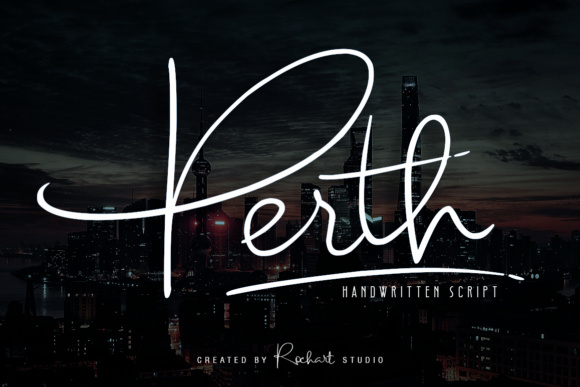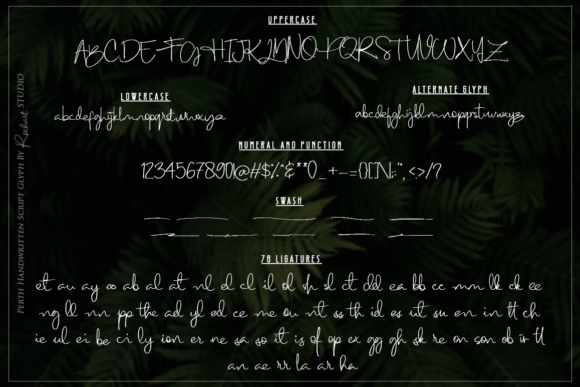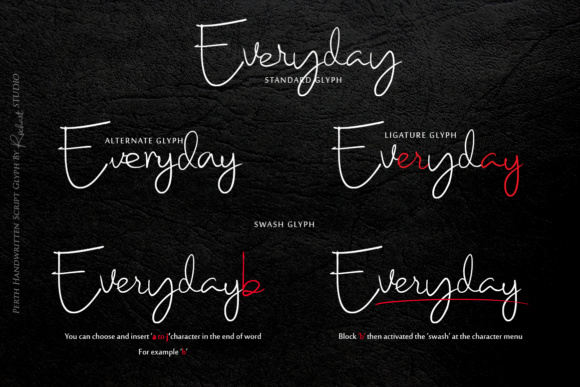
About Perth Script Font
Perth is a handwritten signature script. It has a good readability and contains lots of glyph’s which give you the chance to give your designs a different look, each time you use Perth. Because of it’s diversity, Perth can be used for almost every design.